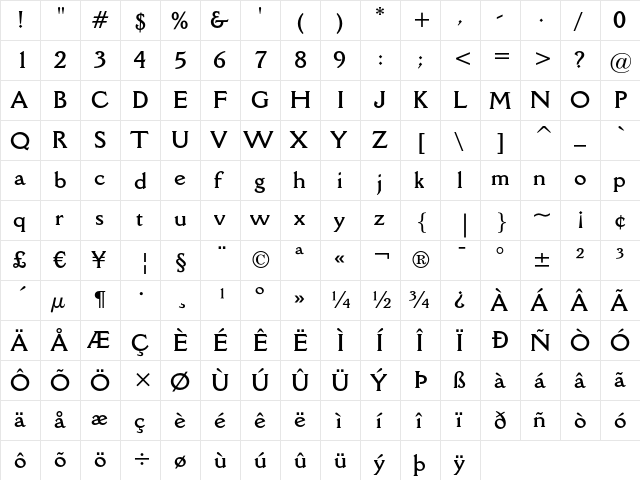
Della Robbia Bold
Design Context for Della Robbia Typeface
Della Robbia takes a measured approach to typography — its balanced proportions and neutral character make it a reliable workhorse for both digital and print work. Its bold stroke weight gives it real presence on the page.
Pro Tip: Use Della Robbia in both headline and body roles to test its range before committing to a single application.